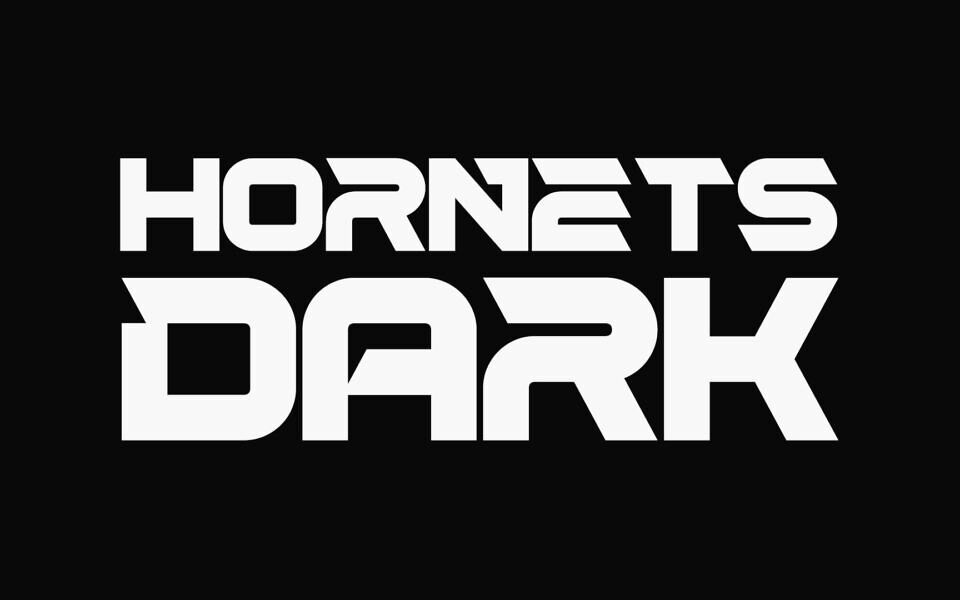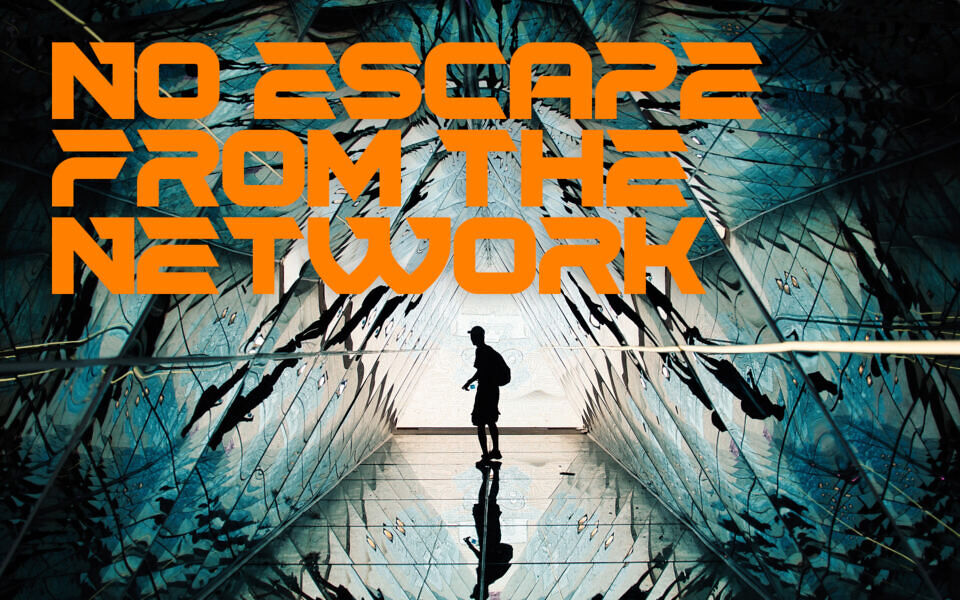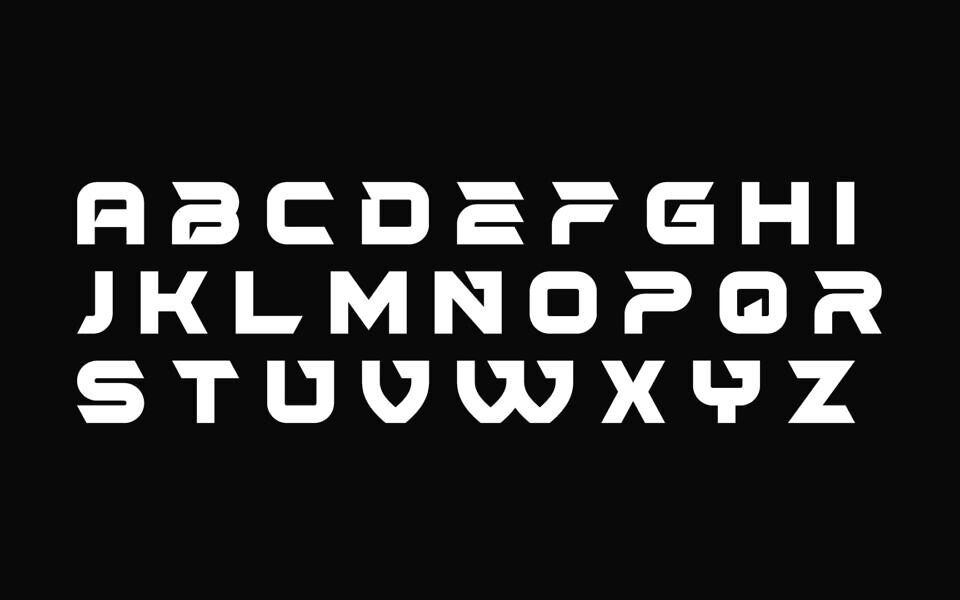
Hornets Dark is a futuristic display font designed by Vladimir Nikolic. Featuring sharp geometric shapes, angular cuts, and a bold techno-inspired style, it delivers a powerful, modern look.
Its industrial character makes it ideal for gaming graphics, esports branding, sci-fi projects, technology themes, posters, logos, and eye-catching headlines. The font combines strong visual impact with excellent readability, helping designs stand out with a sleek, high-energy aesthetic.